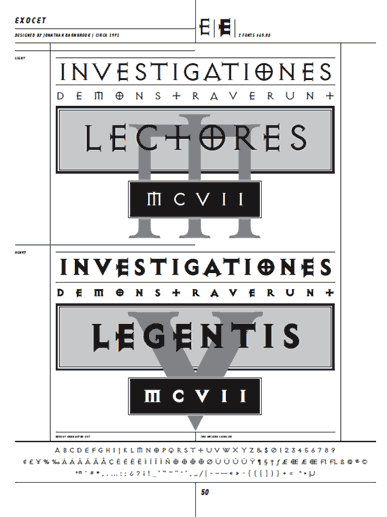
By Jonathan Barnbrook
Originally designed for the European annual Illustration Now, Exocet is based on primitive Greek stone carving. I never really understood the idea of serif type until I experienced drawing it. There are various theories as to how serifs came about. One attributes it to the pull of the brush at the end of the letter, another explains that creating a nice sharp ending at the end of a stem when carving in stone resulted in the idea of serifs. So I tried both methods. Working with the brush was useful for seeing exactly how the quirks of a typeface come about. Stone carving I found a much more enlightening experience, for different reasons. First, it is entirely different from designing type on the Macintosh. It also involves a real physical effort and I felt like I was leaving my marks forever. It brought up questions about the reality of type. Is type carved in stone more "real" than a photograph of type?